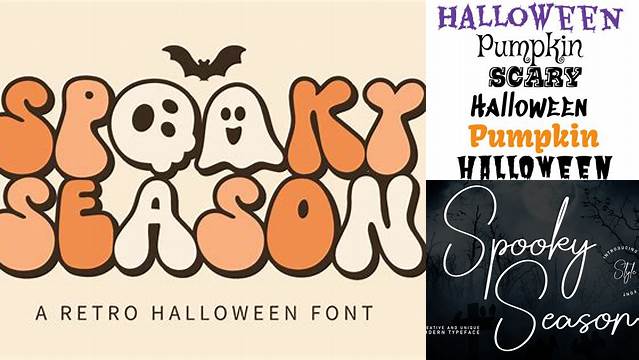
Spooky Fonts: Copy & Paste Halloween Text For Your Designs
Hey there, fellow Halloween enthusiasts! Are you ready to take your spooky season creations to the next level? Whether you're crafting chilling invitations, designing eerie social media posts, or adding a touch of the macabre to your website, the right Halloween fonts can make all the difference. But who has the time to download and install fonts when the witching hour is fast approaching? That's where the magic of copy and paste fonts comes in! Let's dive into the world of spooky fonts you can use instantly, plus some tips and tricks to make your Halloween projects truly scream.
Unleash the Power of Copy and Paste Halloween Fonts
So, what exactly are copy and paste fonts, and why are they a game-changer for your Halloween projects? These aren't your typical font files that you need to install on your computer. Instead, they're special characters and symbols that are readily available online, which you can simply copy and paste into your text. Think of them as pre-made Halloween text styles that are just a few clicks away. This is incredibly convenient because it bypasses the need for font downloads, installations, and compatibility checks – which can be a real time-saver when you're in the middle of Halloween crafts or a last-minute party invite. Copy and paste fonts leverage Unicode, a universal character encoding standard, which means these spooky letters and symbols can be used across different platforms, devices, and applications without compatibility issues. Whether you're on a desktop, laptop, tablet, or smartphone, these fonts will display as intended, ensuring your spooky message is conveyed accurately. This level of cross-platform compatibility is a huge advantage, especially when you're sharing content with a wide audience.
Now, you might be wondering, what makes these fonts so perfect for Halloween? Well, they come in a variety of creepy, kooky, and utterly spooktacular styles! From dripping blood fonts that look like they've been freshly spilled to ghostly, wispy letters that evoke an ethereal feel, there's a copy and paste font for every Halloween theme imaginable. These fonts allow you to add that perfect touch of horror, mystery, or whimsy to your Halloween designs. Imagine creating a party invitation with a font that looks like it was carved into a tombstone or a social media post with letters that seem to be made of spiderwebs. The possibilities are endless! The flexibility of these fonts extends beyond just text as well. Many copy and paste font generators offer an array of spooky symbols, icons, and decorative elements that you can incorporate into your projects. Think bats, ghosts, skulls, pumpkins, and more! These elements add an extra layer of visual interest and can help you create truly eye-catching Halloween-themed content. You can also use these fonts in combination with graphic design software, such as Adobe Photoshop or Canva, to create more complex designs. Copy the text you generate and paste it as a text layer in your design software, then add effects, colors, and other graphical elements to enhance the spooky vibe. This gives you greater control over the final look and feel of your design.
Where to Find the Best Copy and Paste Halloween Fonts
Alright, guys, so you're sold on the idea of copy and paste Halloween fonts. But where do you actually find these mystical marvels? Don't worry; I've got you covered! The internet is brimming with fantastic font generators and websites that offer a wide array of spooky styles, ready for you to copy and paste. One of the most popular resources is online font generators. These handy tools allow you to type in your text, choose from a variety of Halloween font styles, and then simply copy the generated text to your clipboard. It's quick, easy, and requires no special software or technical skills. Just search for “online font generator” or “copy and paste fonts” and you'll find a plethora of options to choose from. Some websites focus specifically on Halloween-themed fonts, offering a curated selection of spooky styles. These sites often categorize fonts by theme, such as horror, gothic, or whimsical, making it easy to find the perfect font for your project. Plus, many of these websites are free to use, making them an excellent resource for budget-conscious creatives.
Another great place to discover Halloween fonts is social media platforms. Many designers and creative individuals share their unique copy and paste fonts on platforms like Instagram, Twitter, and Pinterest. A simple search for hashtags like #HalloweenFonts, #CopyPasteFonts, or #SpookyFonts will reveal a treasure trove of options. This is a great way to find unique and less common fonts that will make your projects stand out. However, always be mindful of the terms of use and licensing when using fonts found on social media. Make sure you have the necessary permissions to use the font for your intended purpose. Beyond websites and social media, you can also explore online design communities and forums. These communities often have dedicated threads or sections where users share their favorite fonts and design resources. Participating in these communities can also provide valuable feedback on your font choices and design ideas. When searching for fonts, pay attention to the overall aesthetic of your project and choose fonts that complement your theme. For a classic horror vibe, consider fonts with sharp edges, dripping effects, or a distressed appearance. If you're going for a more whimsical or family-friendly Halloween, opt for fonts with rounded shapes, playful characters, or a spooky-cute style. Remember, the key is to select fonts that enhance your message and create the desired atmosphere.
How to Use Copy and Paste Fonts for Maximum Spookiness
Okay, you've got your spooky font in hand (or rather, on your clipboard). Now, let's talk about how to use it to create maximum spookiness in your Halloween projects! The beauty of copy and paste fonts is their versatility. You can use them in a myriad of ways to add a touch of terror to your creations. One of the most common uses is for Halloween invitations. Imagine sending out invites with a chilling font that sets the tone for your spooky soiree. Use a font that looks like it was scrawled in blood for a truly terrifying effect, or opt for a ghostly, wispy font for a more ethereal feel. In addition to the font itself, consider the overall design of your invitation. Use dark colors, creepy imagery, and strategic font placement to create a cohesive and spooky aesthetic. Don't forget to include all the essential information, such as the date, time, location, and RSVP details, in a clear and legible font. You want your guests to be thrilled, not confused! Another fantastic application for copy and paste Halloween fonts is in social media posts. Whether you're promoting a Halloween event, sharing spooky content, or simply getting into the spirit of the season, a striking font can make your posts stand out in the crowded social media landscape. Use a bold and attention-grabbing font for headlines and captions, and incorporate spooky symbols and emojis to add visual interest. Consider using animated text effects or GIFs to further enhance the impact of your posts. Remember to use hashtags to reach a wider audience and engage with your followers.
If you're running a business, Halloween fonts can be a powerful tool for marketing and branding. Update your website and social media profiles with spooky fonts and graphics to create a festive atmosphere. Use Halloween-themed fonts in your email newsletters and promotional materials to grab your customers' attention. Offer Halloween-themed discounts or promotions to drive sales. But don't overdo it! Use spooky fonts sparingly and strategically to create a sense of excitement and urgency without overwhelming your audience. Your goal is to create a fun and engaging experience for your customers, not to scare them away. For Halloween crafts and DIY projects, copy and paste fonts can be a lifesaver. Use them to create spooky signs, banners, and decorations. Print out text in a Halloween font and use it as a stencil for painting or carving. Cut out letters from felt or fabric to create spooky embellishments for costumes or home décor. The possibilities are endless! When working on craft projects, consider the scale and visibility of your fonts. Choose fonts that are easy to read from a distance and adjust the size and spacing as needed. Experiment with different materials and textures to create unique and eye-catching effects. Finally, don't forget about the power of context. The font you choose should align with the overall theme and message of your project. A dripping blood font might be perfect for a horror-themed event, but it might not be the best choice for a family-friendly Halloween party. Consider your audience and the desired tone when selecting fonts. And most importantly, have fun and let your creativity shine!
Tips for Choosing the Perfect Spooky Font
So, how do you choose the perfect spooky font for your Halloween creations? With so many options out there, it can feel a little overwhelming! Fear not, my friends, I've got some tips to help you navigate the world of Halloween typography and find the font that will make your projects truly shine. First and foremost, consider the overall tone and theme of your project. Are you going for a classic horror vibe? A whimsical, family-friendly feel? Or something in between? The font you choose should reflect the mood you're trying to create. For a classic horror theme, look for fonts with sharp edges, dripping effects, or a distressed appearance. These fonts evoke a sense of dread and unease, perfect for spooky invitations, haunted house signage, or horror-themed posters. Fonts that resemble handwriting, especially messy or shaky handwriting, can also add to the chilling effect. If you're aiming for a more whimsical or family-friendly Halloween, opt for fonts with rounded shapes, playful characters, or a spooky-cute style. These fonts are less intense and more approachable, making them ideal for children's parties, Halloween-themed games, or cute decorations. Fonts that incorporate cartoonish elements, such as ghosts, bats, or pumpkins, can also add a touch of fun and whimsy.
Next, think about the readability of the font. While a super spooky font might look fantastic, it won't do you any good if your audience can't read it! Make sure the font is legible, especially for important information like dates, times, and locations. Avoid fonts that are too stylized or decorative, as these can be difficult to read at a glance. Consider the size of the text and the background color when assessing readability. A dark font on a light background is generally easier to read than a light font on a dark background. Use a larger font size for headlines and key information to ensure they stand out. Another important factor to consider is the font's versatility. Can you use it for both headlines and body text? Does it come with a variety of weights and styles? A versatile font will give you more flexibility in your designs and allow you to create a cohesive look and feel across your project. Look for fonts that offer different weights (e.g., light, regular, bold) and styles (e.g., italic, condensed) to add visual variety and hierarchy to your text. You can also pair different fonts together to create a more dynamic and visually interesting design. However, be careful not to use too many fonts, as this can make your design look cluttered and unprofessional. As a general rule, stick to two or three fonts per project.
Don't be afraid to experiment with different fonts and combinations! The best way to find the perfect font is to try out different options and see what works best for your project. Play around with font sizes, colors, and spacing to create different effects. Use online font pairing tools to get suggestions for fonts that complement each other. And don't be afraid to break the rules and try something unexpected! Ultimately, the best font is the one that best reflects your vision and helps you achieve your desired effect. And hey, if you're feeling extra creative, you can even try creating your own copy and paste font! There are various online tools and apps that allow you to design your own fonts using symbols, letters, and other characters. This can be a fun and rewarding way to personalize your Halloween projects and make them truly unique.